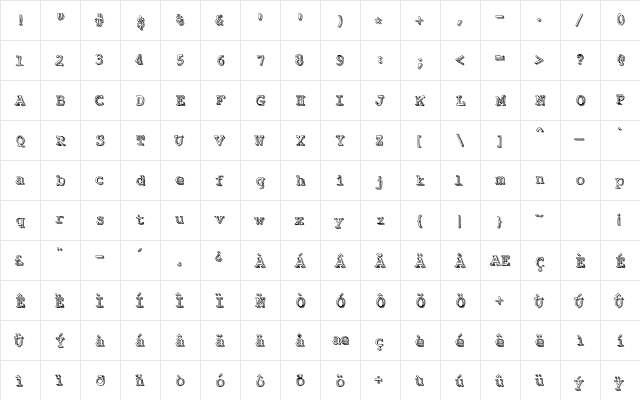
Funplay Regular
| Foundry | Xerographer Fonts |
| Designer | Max Infeld - Xerographer Fonts |
Design Context for Funplay Typeface
Funplay has an approachable, lighthearted character — its loose, expressive forms are well-suited to children's content, casual branding, and fun-first design.
Font Pairing: Pairs well with a rounded or humanist sans for body copy, maintaining the friendly tone without relying on Funplay to carry extended reading.
Pro Tip: Use Funplay at larger display sizes where its expressive character can land. Pair with a clean, simple sans for body copy to maintain readability.